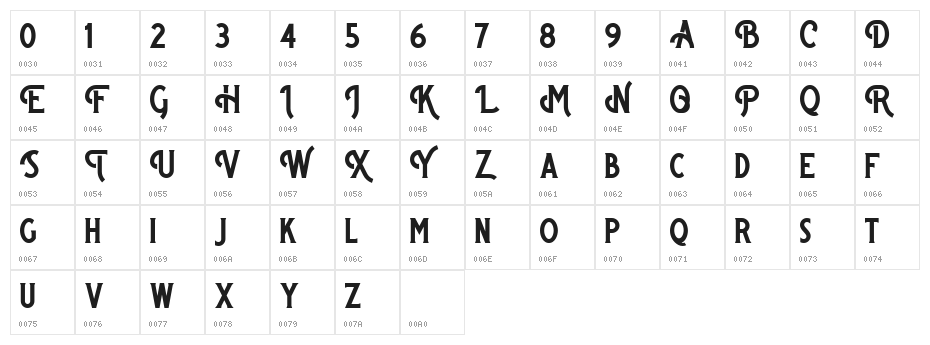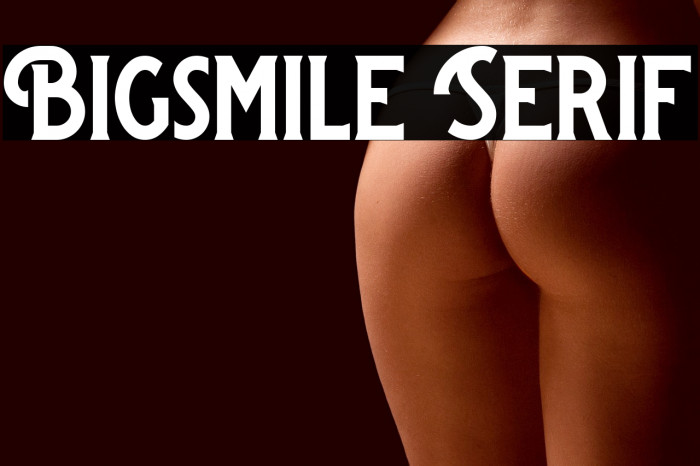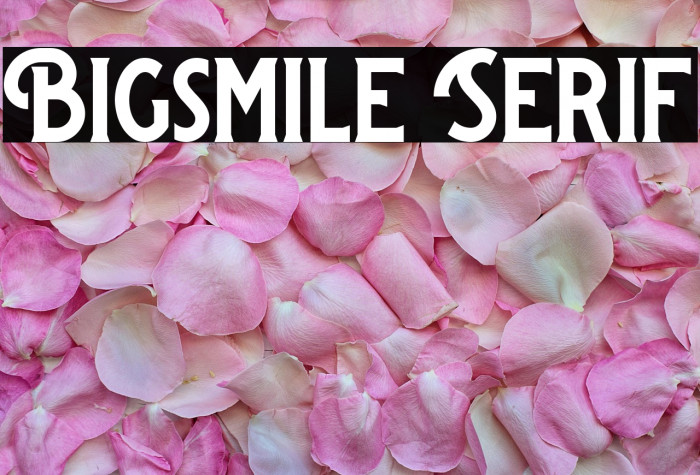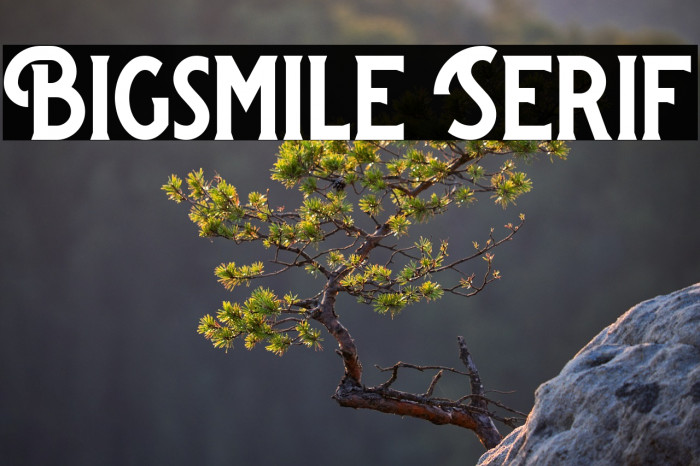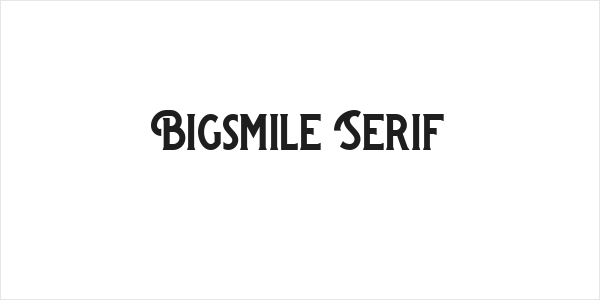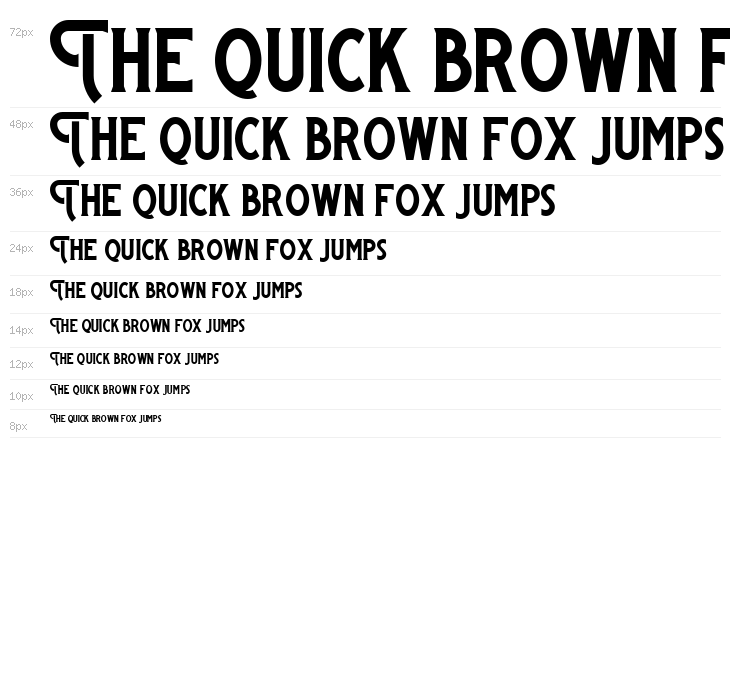
Bigsmile Serif Font
Bigsmile Serif Description
This font features a bold and dynamic serif style with a playful twist. The uppercase letters exhibit a strong presence with pronounced serifs and unique curves, giving them a slightly whimsical appearance. The lowercase letters maintain a consistent style, offering a harmonious blend of traditional serif elements with modern flair. The numerals are bold and clear, ensuring readability while maintaining the font's distinctive character. The special characters are crafted to match the overall aesthetic, making them suitable for a variety of design applications. This font is ideal for projects that require a touch of elegance with a playful edge.
| Proposed Projects | Ideal for branding, headlines, posters, and creative design projects. |